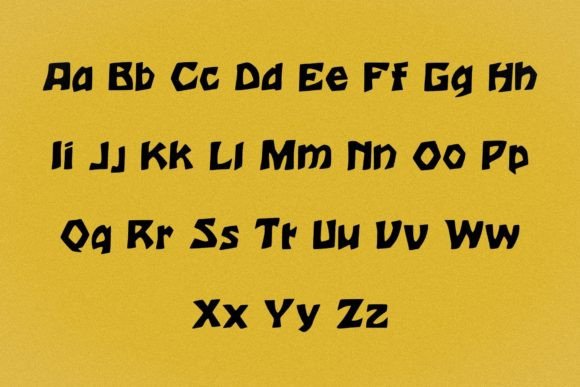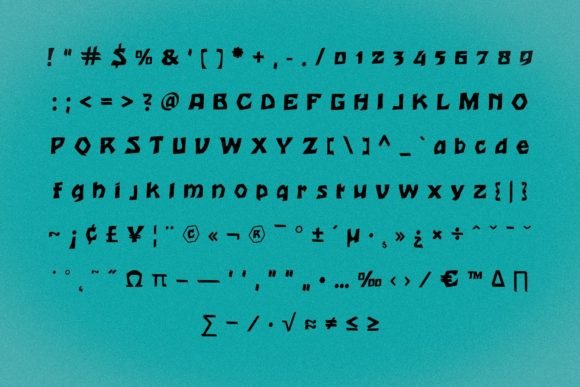
Get Ready to Unleash Your Creativity with Bedhead Font
Have you ever stared at a blank canvas, trying to conjure up the perfect idea for a project, only to have it hit you like a ton of bricks in the middle of the night? For designers, this moment of clarity is what drives us to create something truly special. And that’s exactly what we’ll explore in this article – a font that’s guaranteed to bring your next creative project to life.
Meet the Bedhead Font, a display font with a cartoon style that’s perfect for bringing your ideas to the forefront. Whether you’re working on a cartoon project, creating a poster, or designing a business card, this font is sure to add a touch of whimsy and personality to your work. And for designers, it’s a valuable tool that can help you stand out from the crowd and bring a unique touch to your projects.
Bedhead Font Key Features
- Unique Characteristics: Distinctive, hand-drawn style with irregular letterforms, perfect for adding a touch of personality to digital and print designs
- Kerning and Ligatures: Includes advanced kerning and ligature pairs for smooth, high-quality typography
- Font Weight and Style: Available in 6 weights (Light, Regular, Medium, Bold, Black, and Outline) and 3 styles (Regular, Italic, and Bold Italic)
Bedhead Font Review
Overall, I found the Bedhead Font to be a quirky, fun choice for creative projects. It has a unique charm that sets it apart from more traditional fonts.
- Expressive and playful style that’s perfect for branding or marketing materials
- Good for making bold statements and grabbing attention
- Works well for both digital and print applications
- Includes a wide range of weights and styles to suit different design needs
- May be too bold or overwhelming for some projects or audiences
- Lack of subtlety can make it difficult to read at smaller sizes or in large blocks of text
- Not ideal for formal or professional designs, such as resumes or academic papers
The Bedhead Font is a great choice for designers looking to add some personality and whimsy to their projects. While it may not be suitable for every design task, it’s a valuable addition to any font library.
The Bedhead Font is perfect for:
- Brand logos and identities.
- Social media graphics and posts.
- Print materials, such as business cards and brochures.
For the most effective use, remember to balance the Bedhead Font with clear, readable text and a cohesive design.
Alternatives to Bedhead Font for Designers
Great Vibes is a beautiful, handwritten script font that can be used for a variety of purposes, including headings, titles, and body text. It has a relaxed, casual feel that works well for creative and artistic projects.
Compared to Bedhead Font, Great Vibes has a more elegant and refined look, making it suitable for high-end or luxury projects. While Bedhead Font has a more playful and childlike feel, Great Vibes is more sophisticated and mature.
Alice
Alice is a modern, cursive script font that is perfect for projects that require a touch of elegance and sophistication. It has a unique, hand-painted feel that works well for titles, headings, and body text.
Compared to Bedhead Font, Alice has a more classic and timeless look, making it suitable for a wide range of projects, from weddings to corporate events. While Bedhead Font is more playful and whimsical, Alice is more refined and sophisticated.
Carolyna Pro is a modern, script font that is perfect for projects that require a touch of sophistication and elegance. It has a unique, hand-painted feel that works well for titles, headings, and body text.